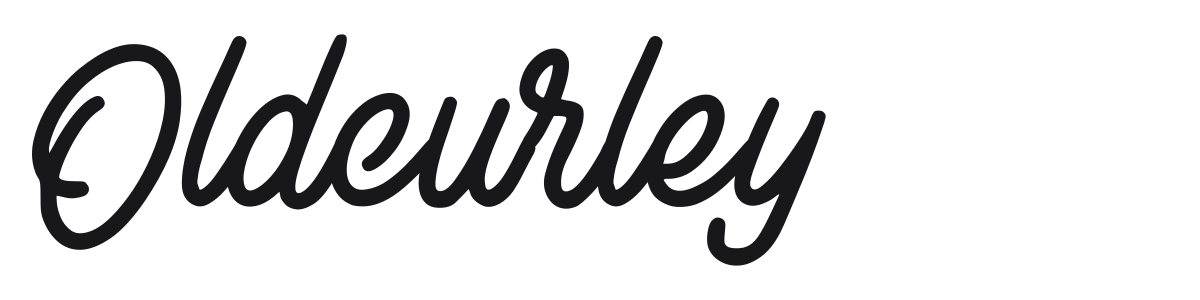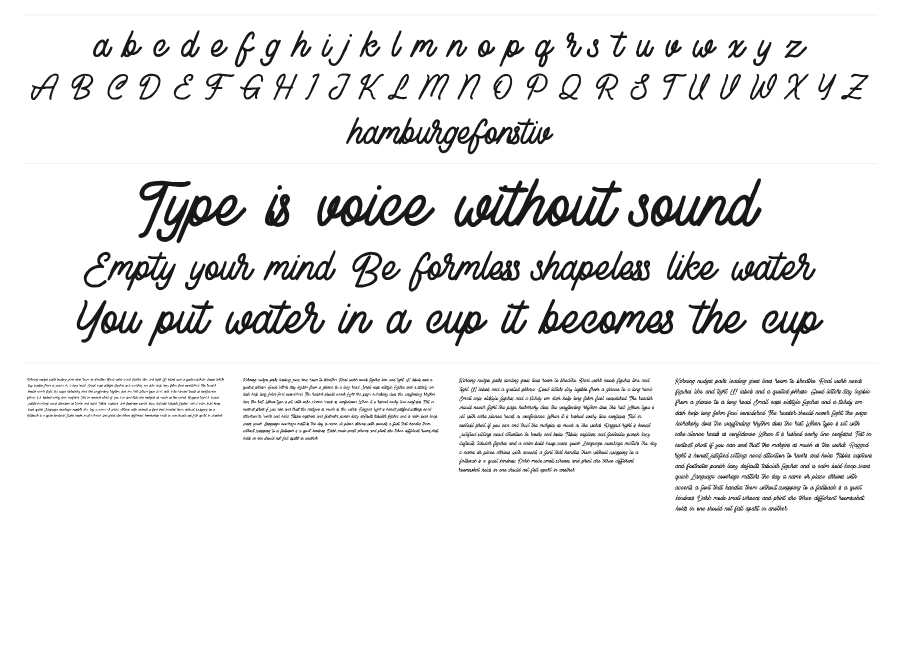
Oldcurley
Oldcurley is a bold connected casual script with smooth flowing strokes and a confident hand-lettered personality. The rounded terminals and rhythmic letter connections give it a warm, approachable retro feel that works well on packaging, logos, and signage. It carries the energy of mid-century commercial lettering without feeling dated.